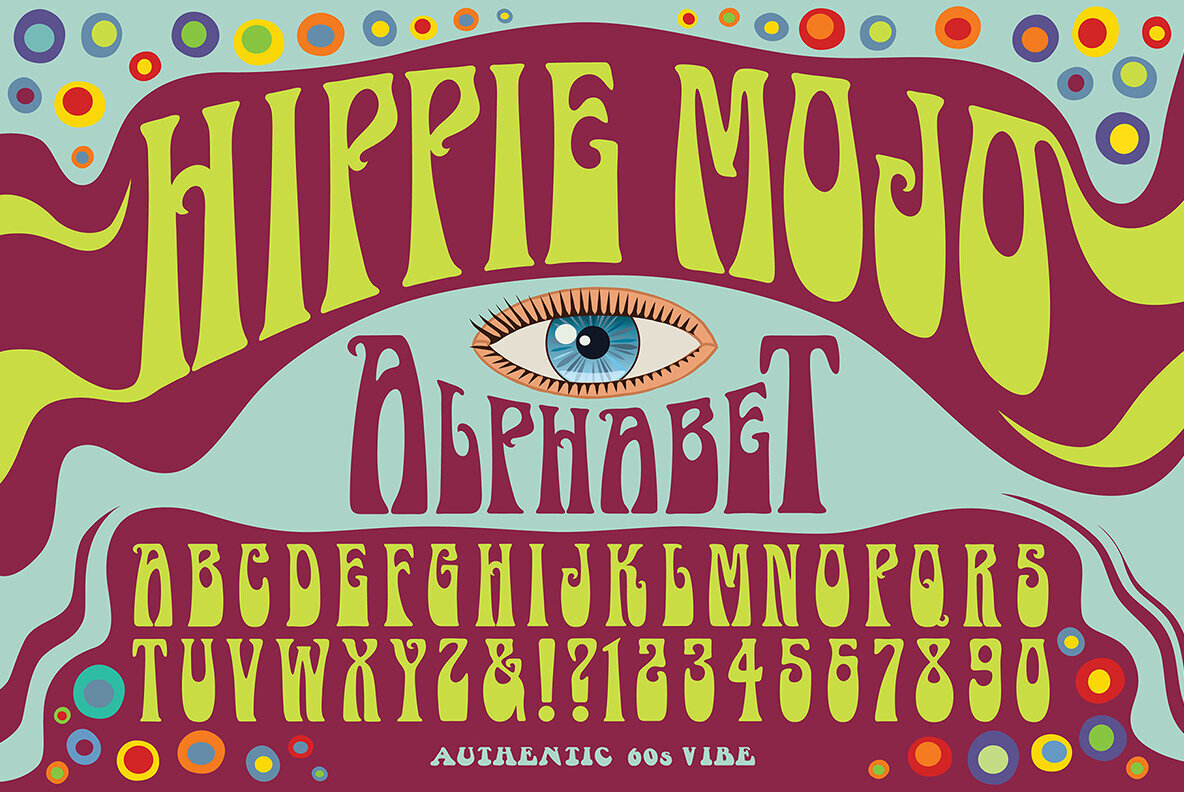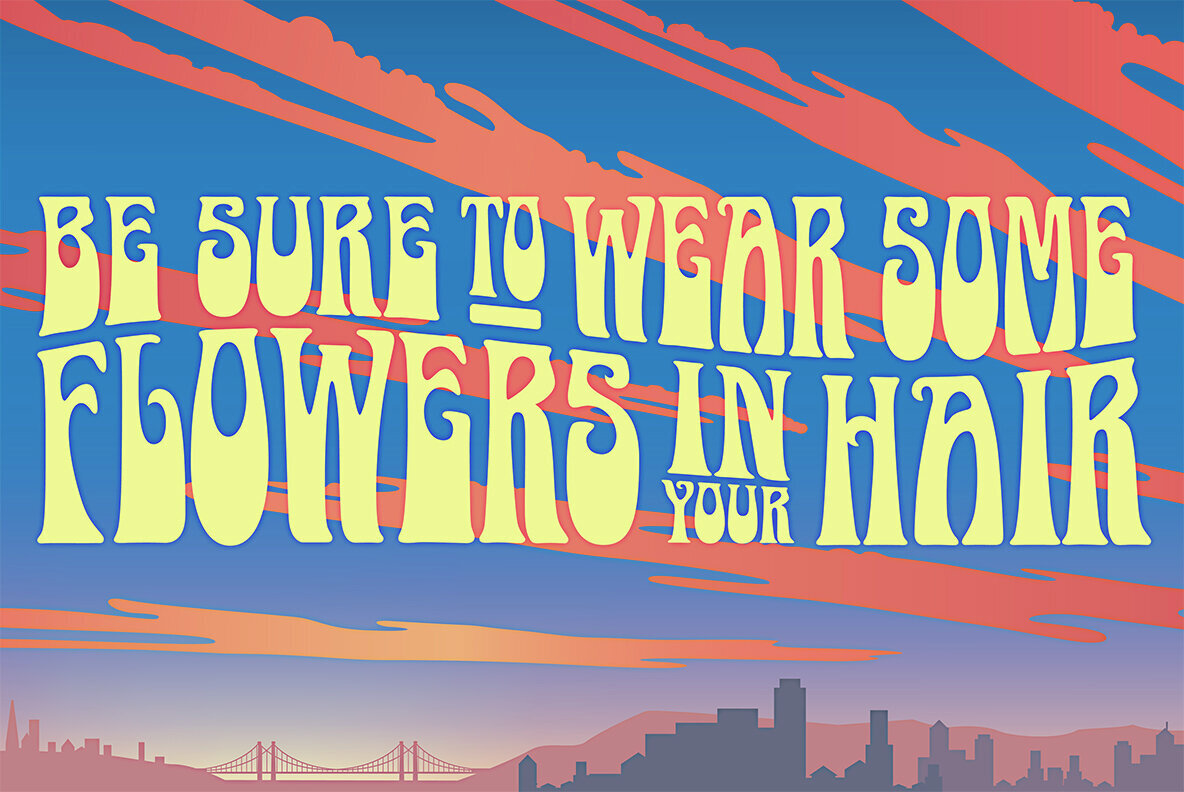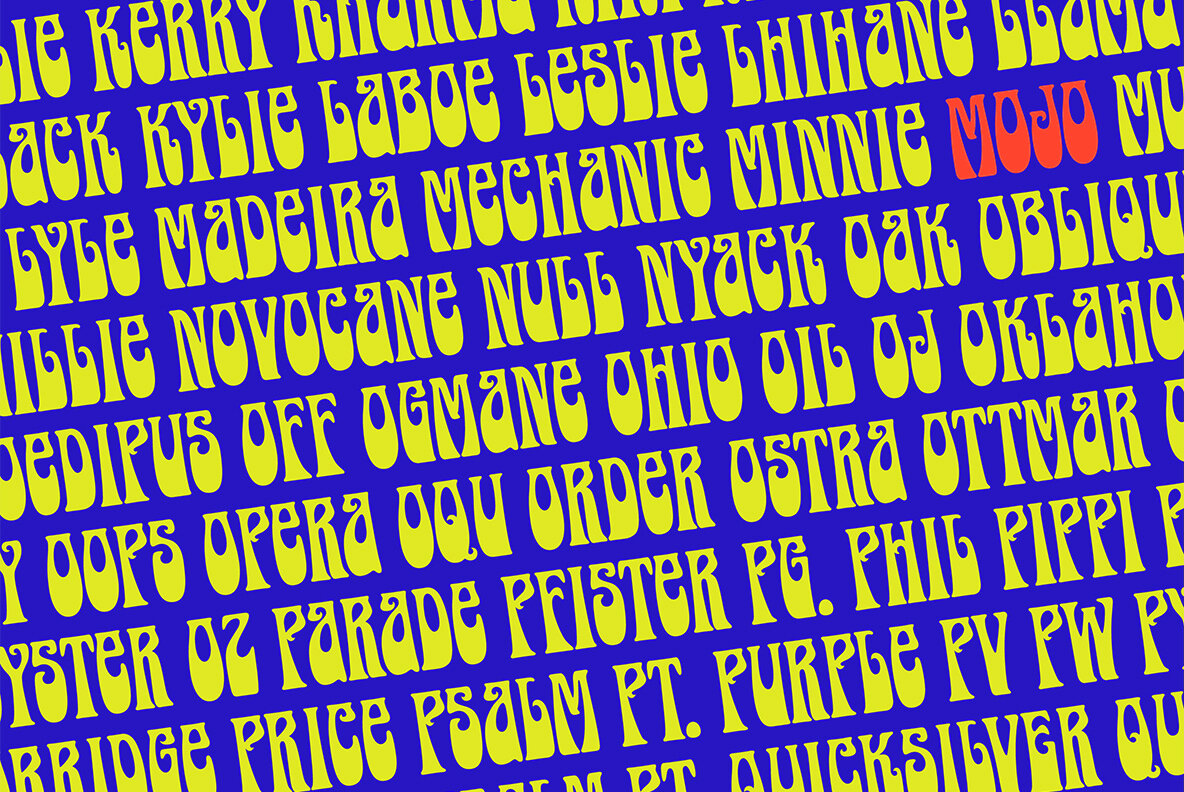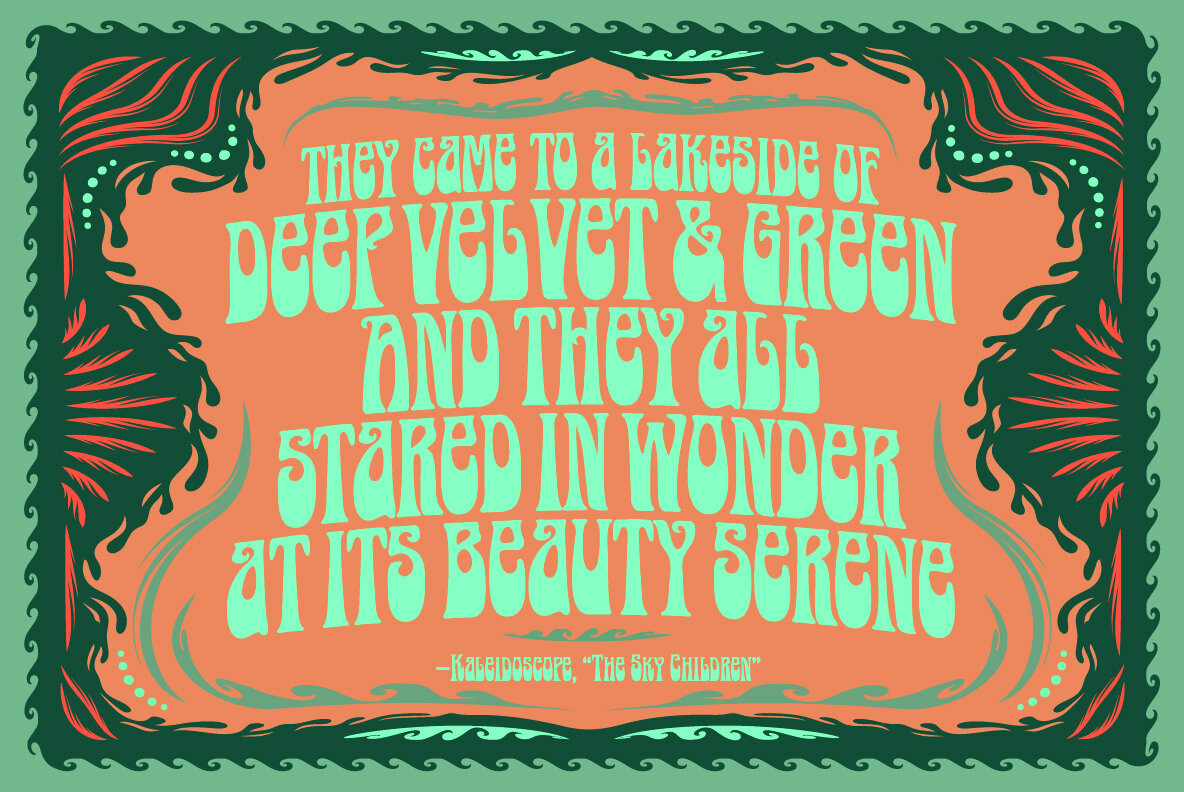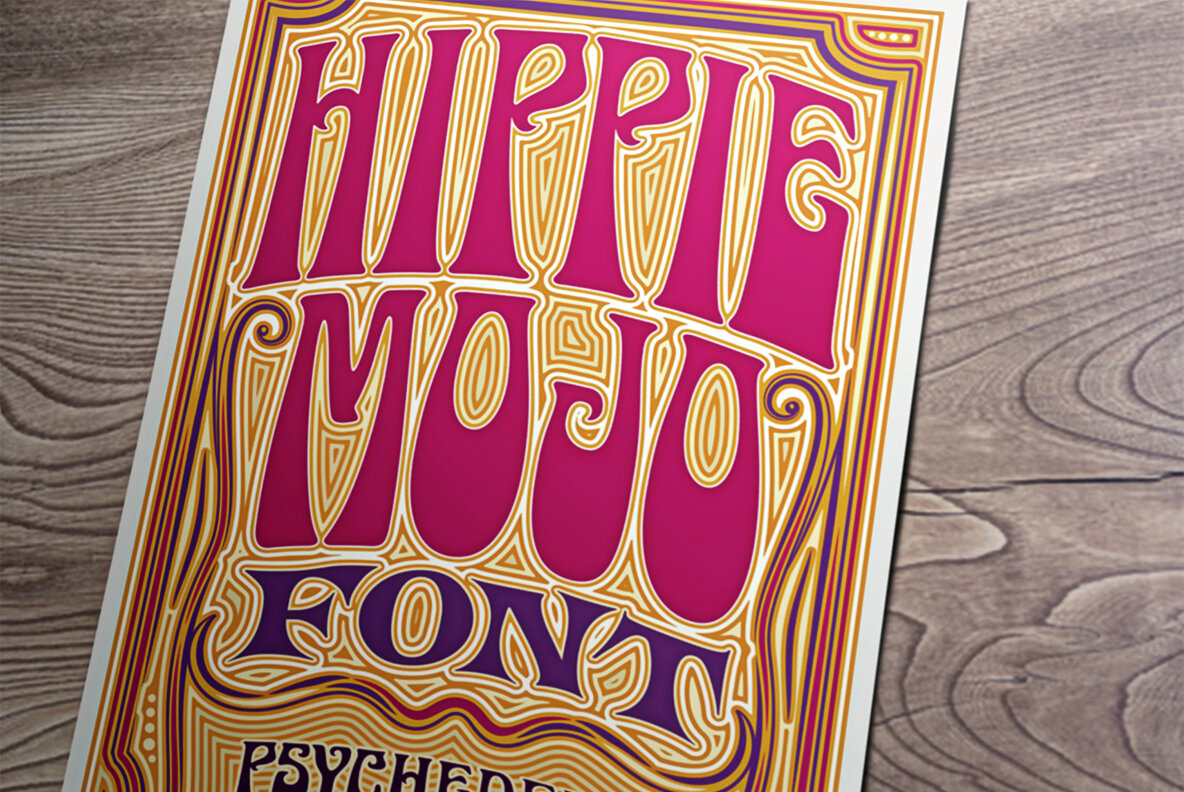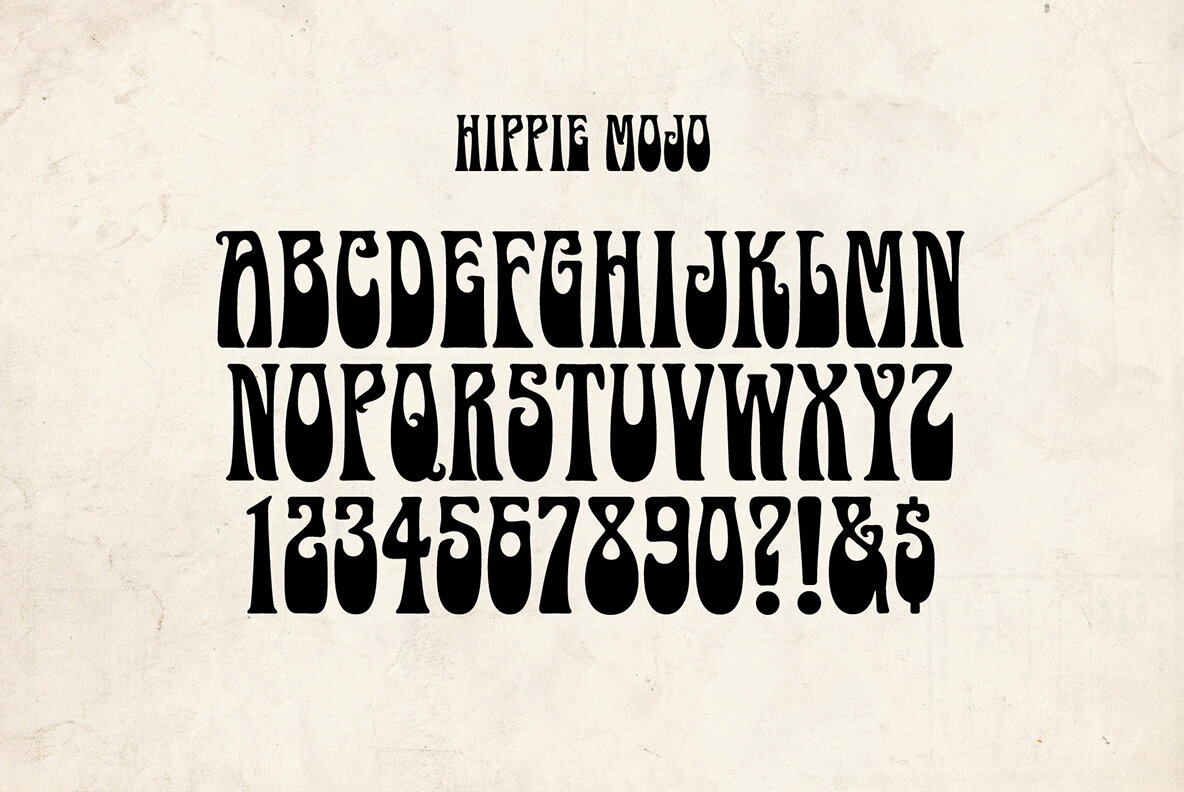
Hippie Mojo
Set the wayback machine for about 1967. This psychedelic font will inject just the right dose of swirly-licious mojo into your retro designs. This is predominantly a uni-case font but also features a few alternative characters in the lower case. It’s great for event posters and flyers, band logos, and album cover graphics. Evoke the carefree and tripped-out vibe of the psychedelic era with Hippie Mojo; it's pure retro fun!
Mott Jordan studied studio art and design at U.C. Santa Cruz, and was a self-employed sign painter and later a full-time graphic artist at a local weekly. His type design career began in earnest under Ilene Strizver at International Typographic Corporation in the mid-1990s, releasing two typefaces (ITC Verkehr...